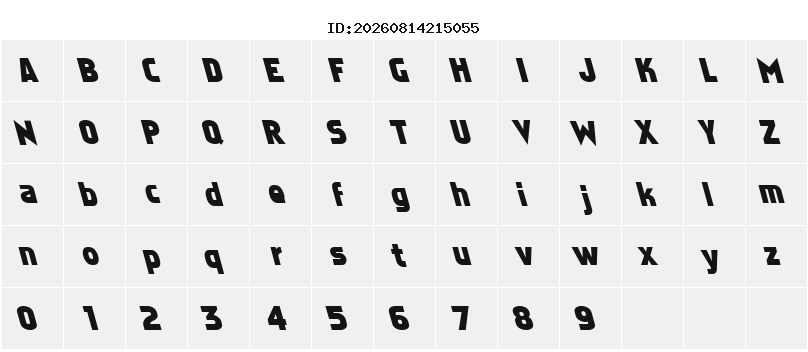
Stare 3 Preview
• Font Name: Stare 3
• Full Font Name: Stare 3
About Stare 3.ttf
Stare 3.ttf is a modern, elegant sans-serif font designed for ultimate readability and visual harmony. Perfect for branding, headlines, web design, and print materials.